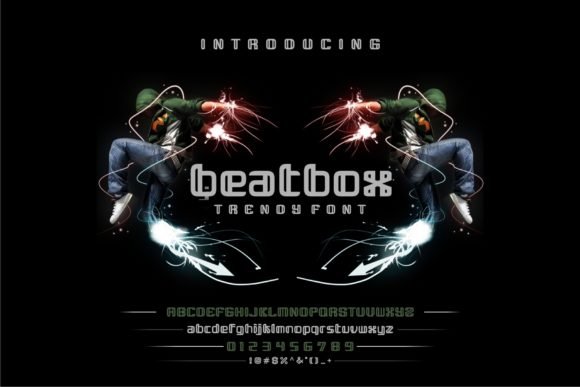
Unlock the Rhythm of Your Designs
You’ve got that perfect design idea in your mind, but it’s just missing that special something to make it pop. You know, that spark that sets your project apart from the crowd. For designers like you, finding the right font can be the key to unlocking that magic.
Enter the Beatbox Font, a trendy, urban, and sporty display font that’s guaranteed to turn any design idea into an eye-catcher. This versatile font is designed to add a touch of edginess and sophistication to your designs, making it perfect for fashion brands, streetwear labels, and sports enthusiasts.
Beatbox Font Key Features
- Unique Character Set: The Beatbox Font features a set of distinct characters and symbols inspired by beatboxing, including mouth sounds, vocal percussion, and rhythmic patterns.
- Font Size: The Beatbox Font is designed to be highly scalable, with a minimum recommended size of 24 points for optimal legibility.
- Resolution: Suitable for both screen and print use, with clear rendering at resolutions up to 300 DPI.
- Unique Styling Options: The font includes a range of stylistic sets and alternates that allow designers to create unique and creative typography, such as bold, italic, and condensed versions.
- Multi-Lingual Support: The Beatbox Font includes support for multiple languages, including English, Spanish, French, German, and many more, making it a versatile choice for international projects.
Beatbox Font Review
As a designer, I was excited to try out the Beatbox font. Here’s my honest review.
- Unique aesthetic: Beatbox font has a distinctive, quirky feel that can add some personality to your designs.
- Good for headlines: The font’s bold, expressive qualities make it suitable for headlines and titles.
- Customization options: Beatbox font offers a range of customization options, including different weights and styles.
- Limited legibility: In some cases, the font’s unique style can make it difficult to read, especially at smaller sizes.
- Not ideal for body text: Due to its bold, expressive nature, Beatbox font may not be the best choice for body text or paragraphs.
- May not be suitable for all audiences: The font’s quirky style may not appeal to all audiences or be suitable for all types of content.
Overall, I think Beatbox font is a great addition to any designer’s toolkit. While it may have some limitations, its unique aesthetic and customization options make it a valuable resource for adding some personality to your designs.
Tips for Getting the Most Out of Beatbox Font
Use the Beatbox font for creative and playful designs.
Combine the font with other bold and colorful elements to create a striking visual effect.
Experiment with different font sizes and styles to add emphasis and hierarchy to your design.
Use the Beatbox font for:
Party invitations and promotional materials.
Music and entertainment branding.
Playful and creative marketing campaigns.